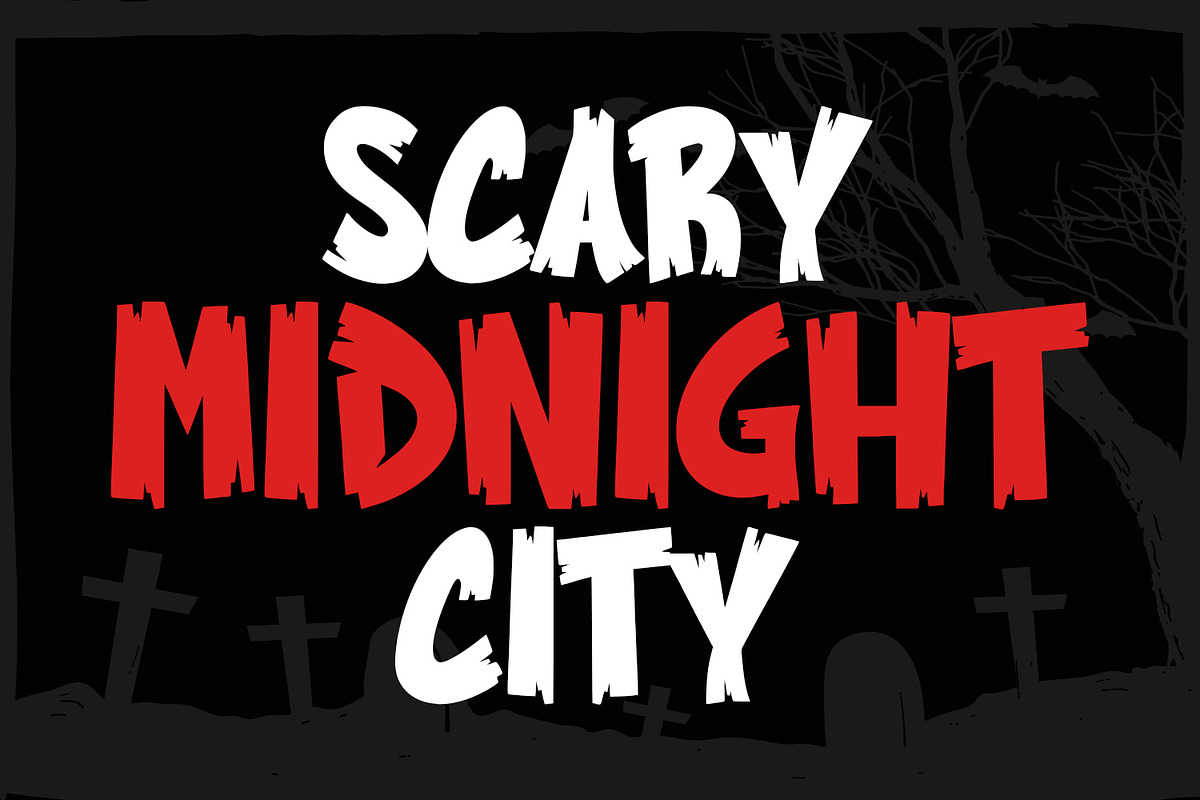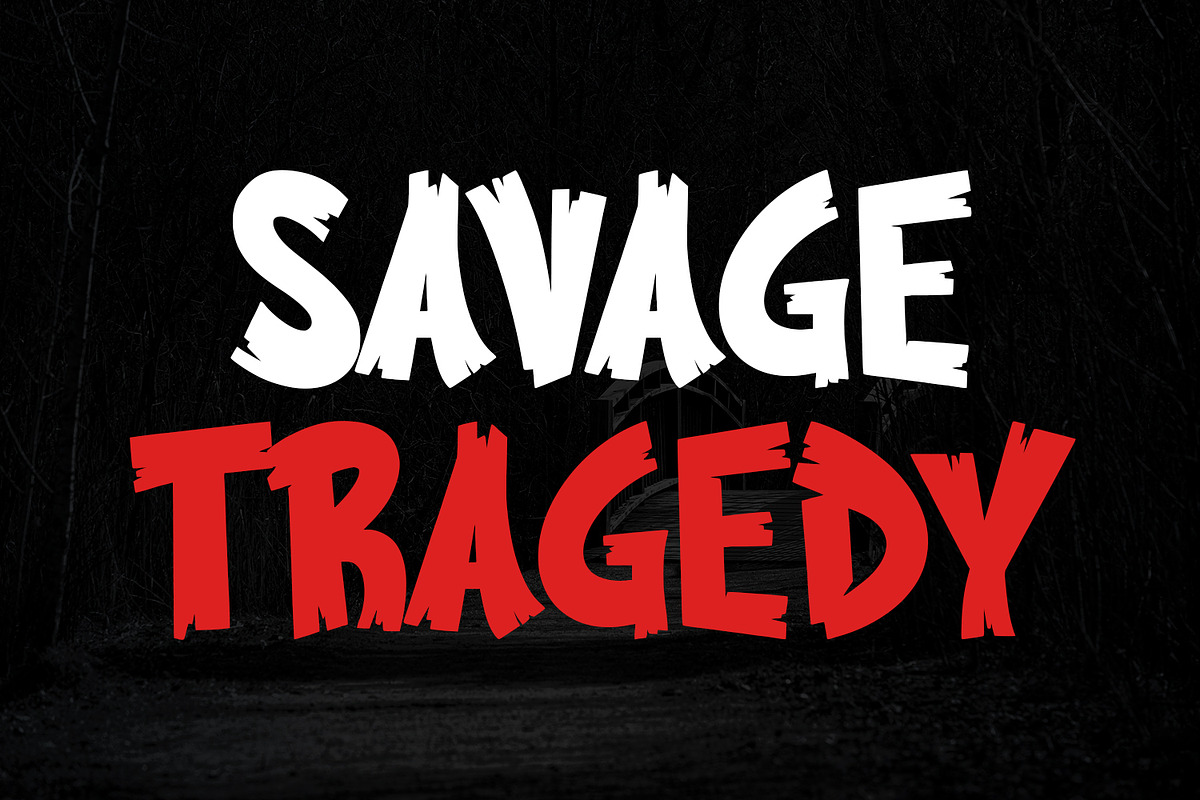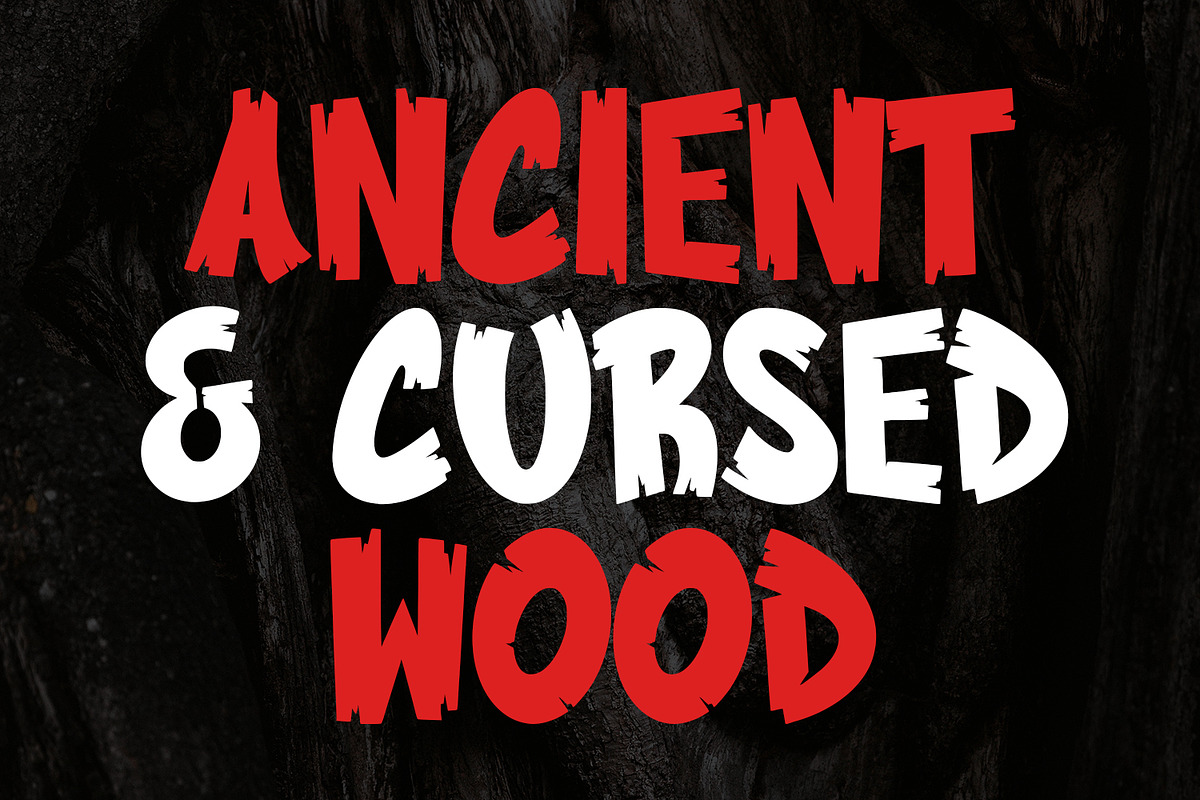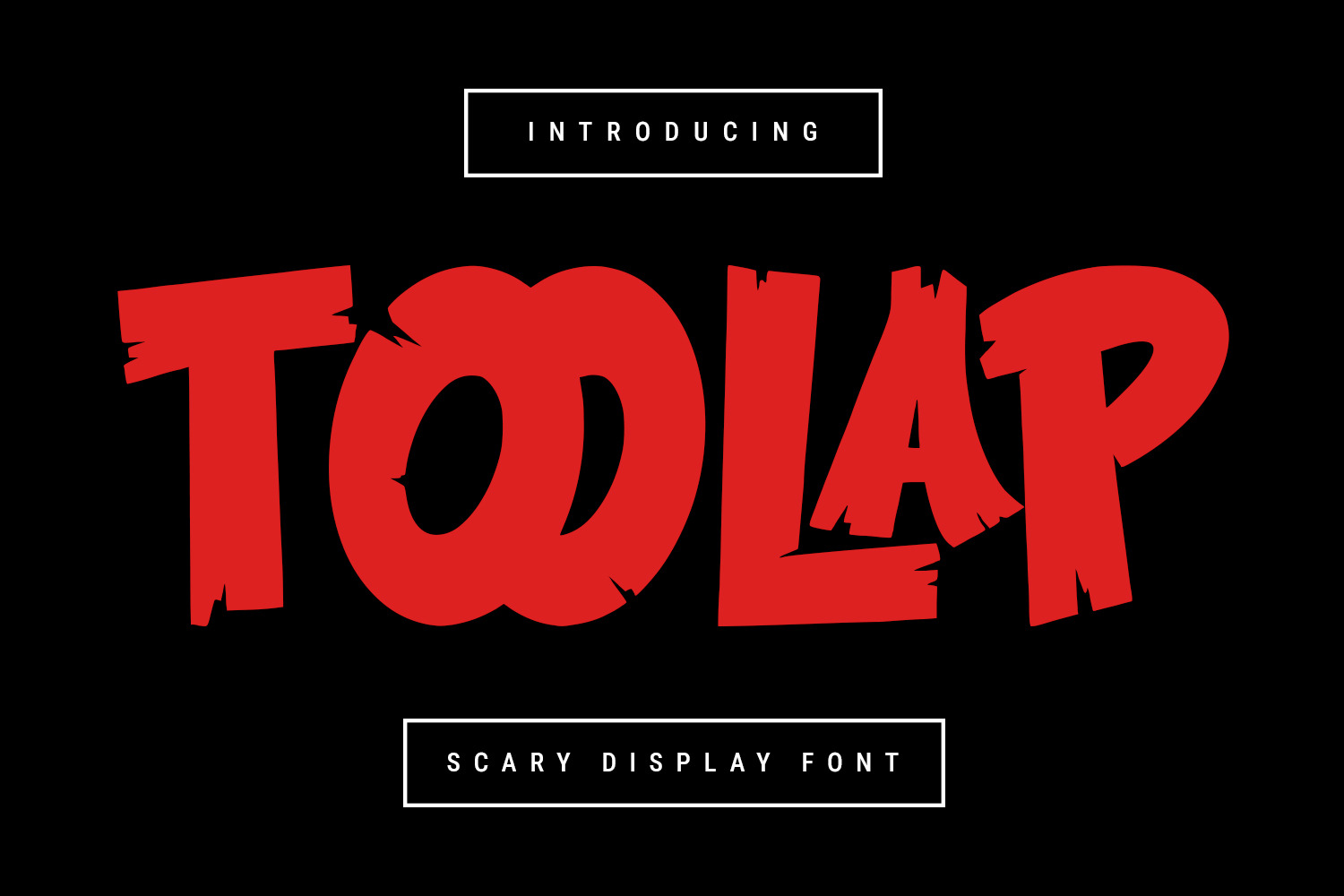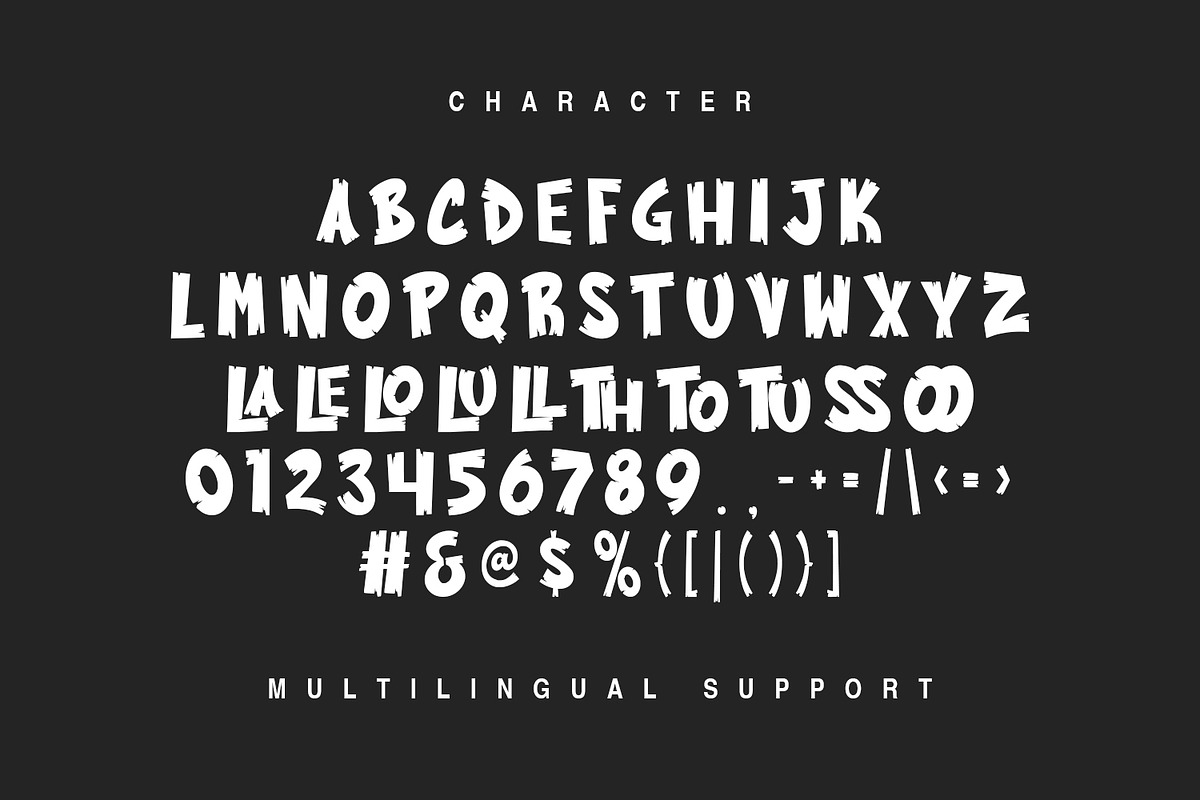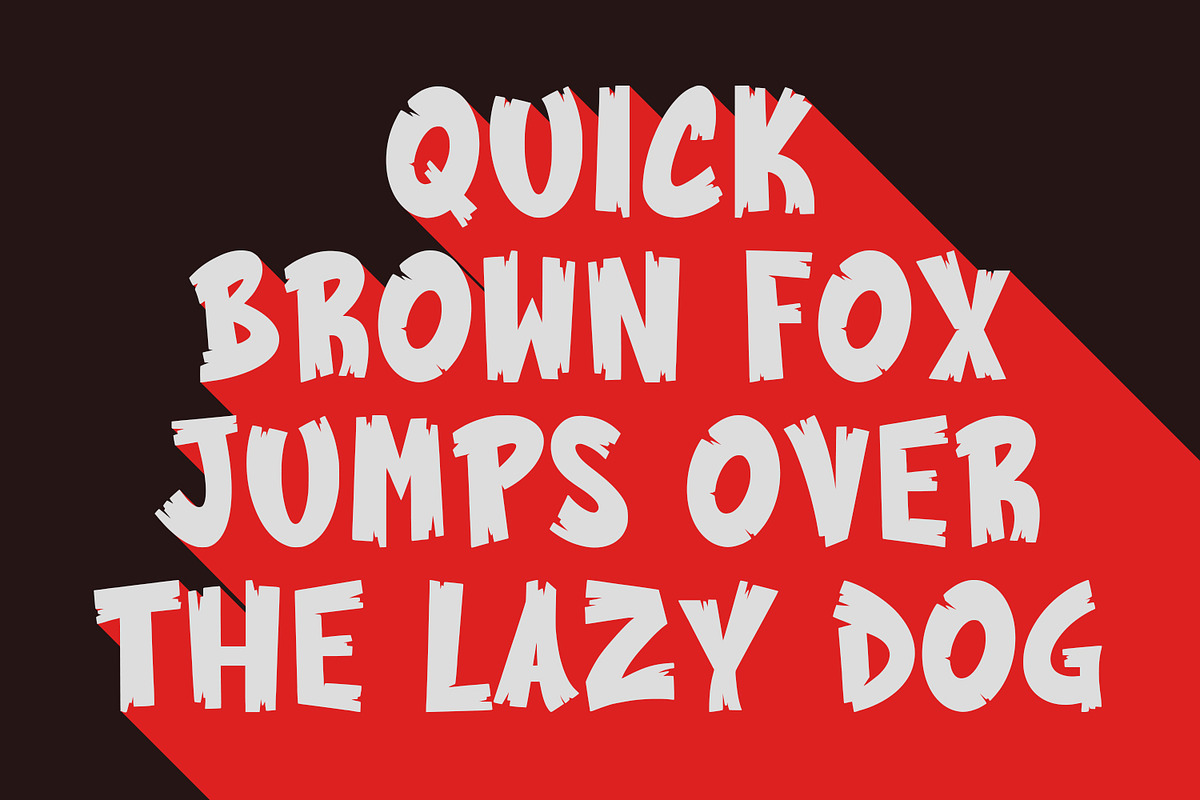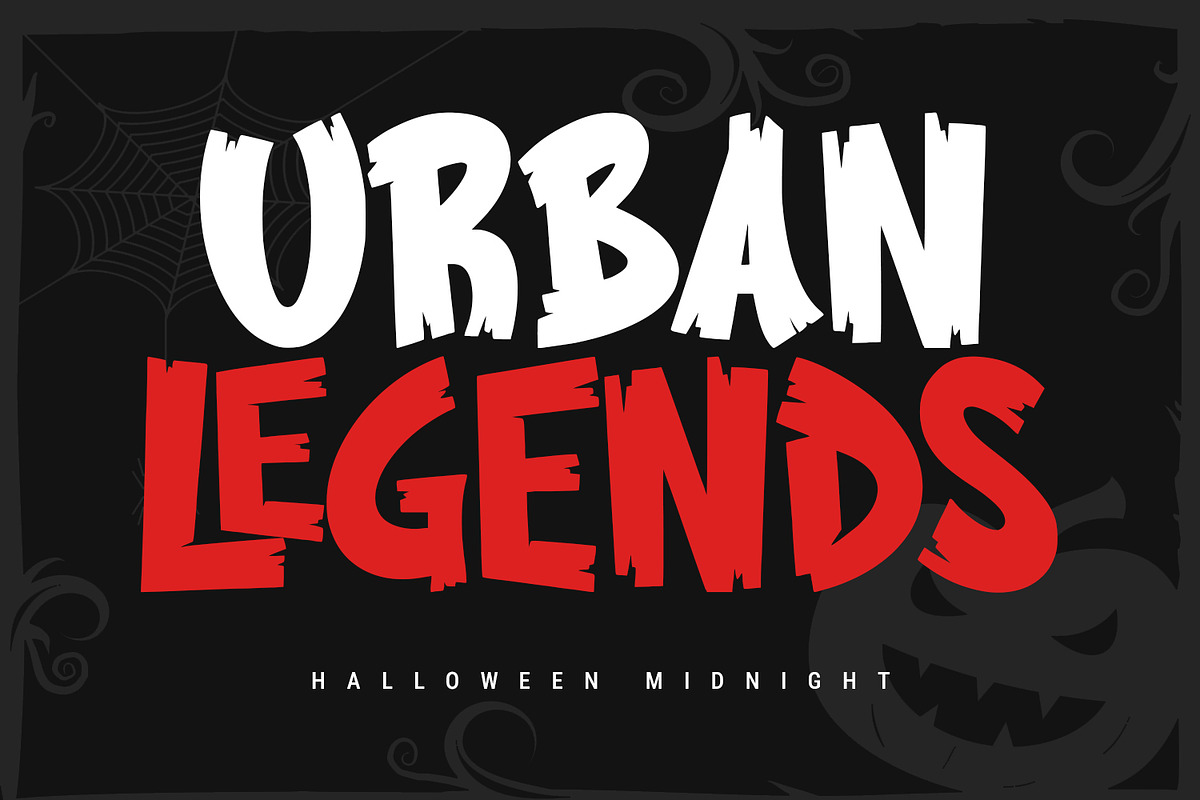
Toolap Scary Display Font
Toolap scary display font is a bold and haunting typeface designed to bring a chilling atmosphere to your creative projects. With sharp edges, eerie curves, and a dramatic style, this font is perfect for horror-themed designs, Halloween posters, spooky invitations, thriller movie titles, and dark branding concepts. Its eye-catching display style makes it stand out, giving your work a terrifying yet artistic touch. Whether you’re creating creepy social media graphics, haunted house flyers, or gothic merchandise, Toolap scary display font will instantly set the mood and grab attention.